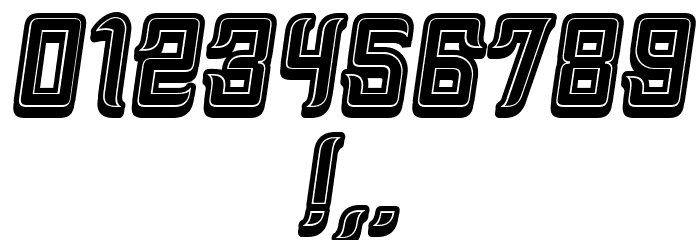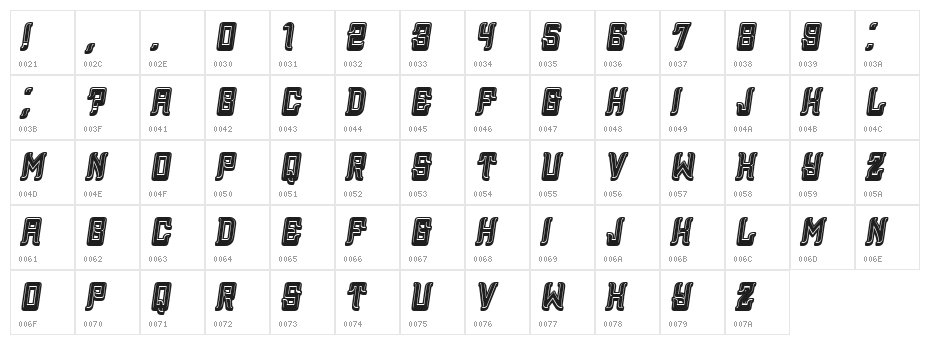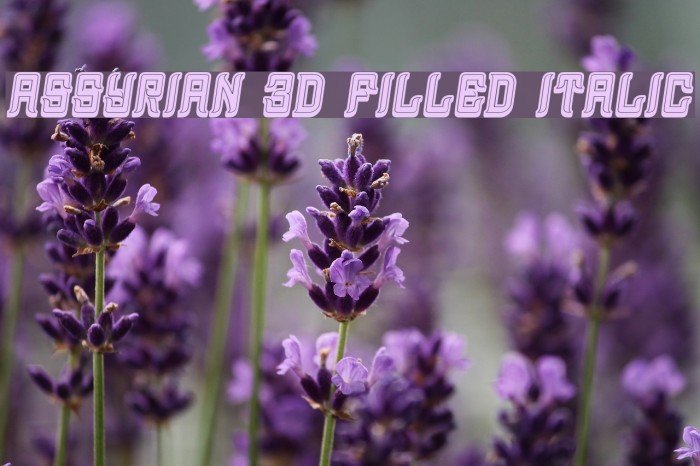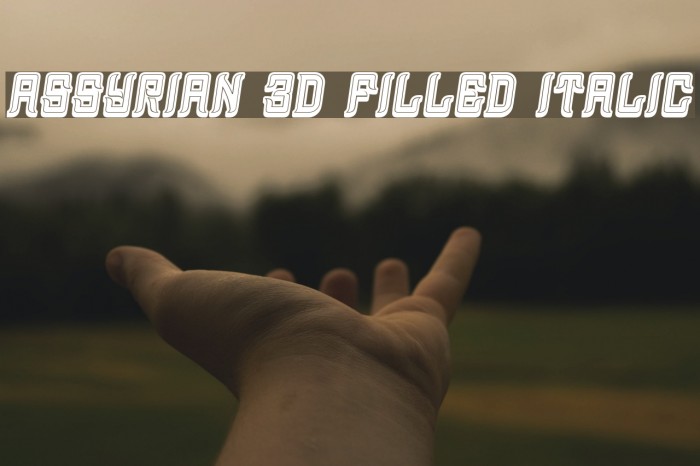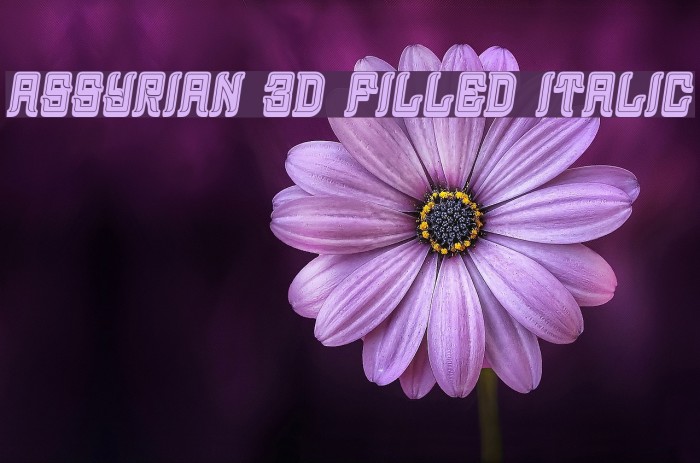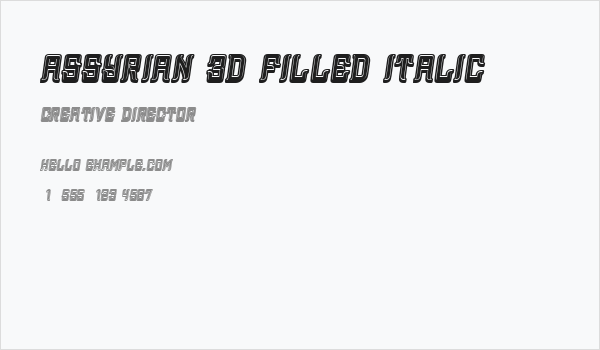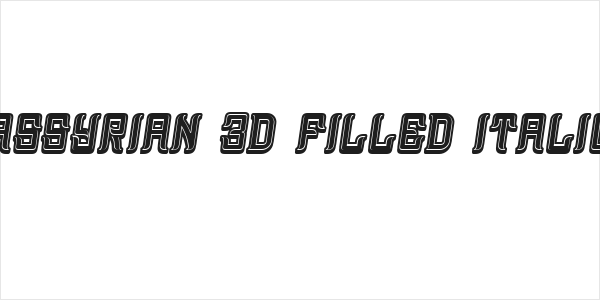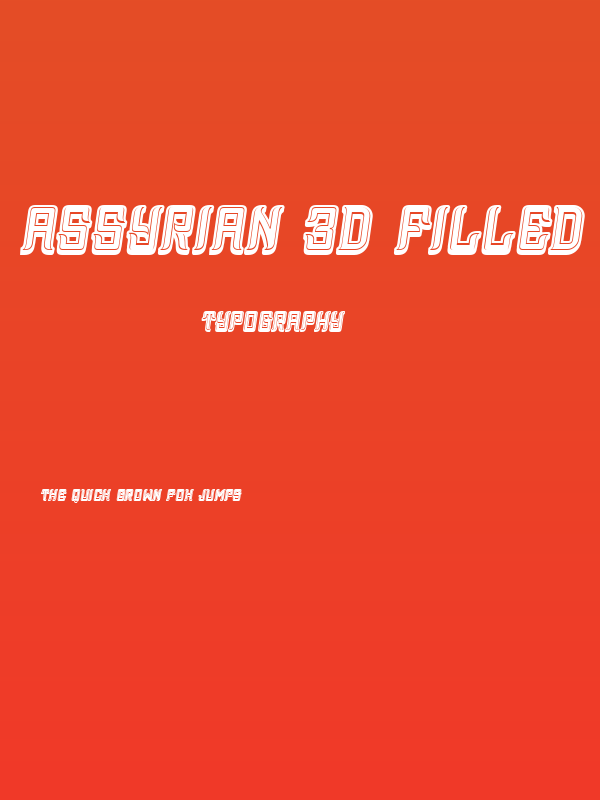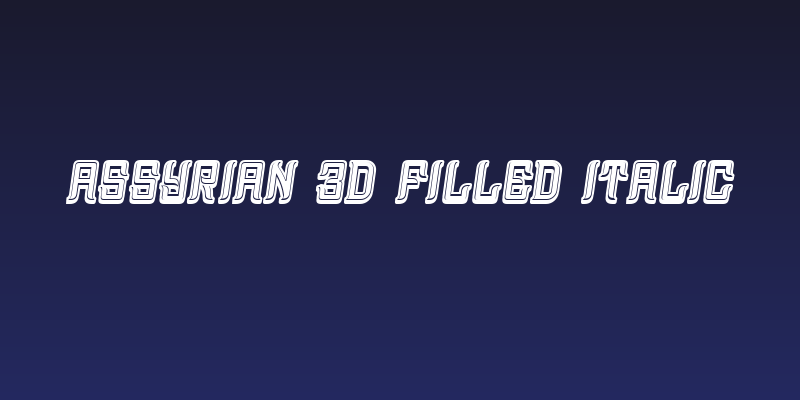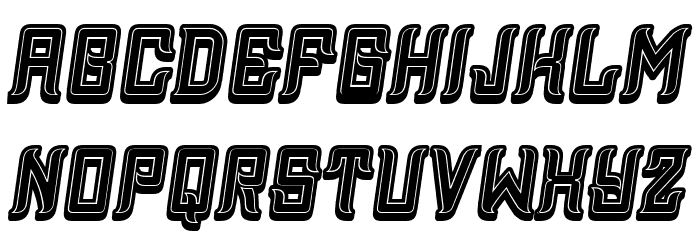
Assyrian 3D Filled Italic Font
Assyrian 3D Filled Italic Description
This font features a bold, three-dimensional design with a filled interior and italicized slant, creating a dynamic and eye-catching appearance. The characters are outlined with a thick black border, enhancing the 3D effect and providing a sense of depth. The uppercase and lowercase letters maintain a consistent style, with angular edges and a slightly condensed form. The numerals and special characters follow the same design principles, ensuring uniformity across all glyphs. This font is particularly suited for projects that require a strong visual impact, such as posters, headlines, or branding materials.